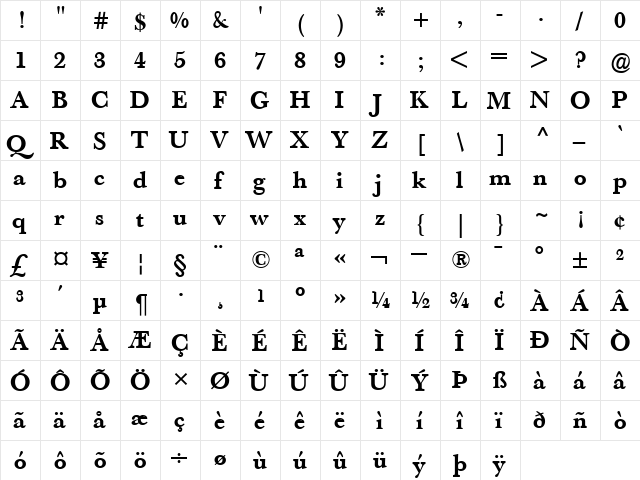
BertholdBaskervilleMedium-Book Book
Design Context for BertholdBaskervilleMedium-Book Typeface
BertholdBaskervilleMedium-Book is a composed and adaptable typeface that performs quietly and consistently across a wide range of design contexts.